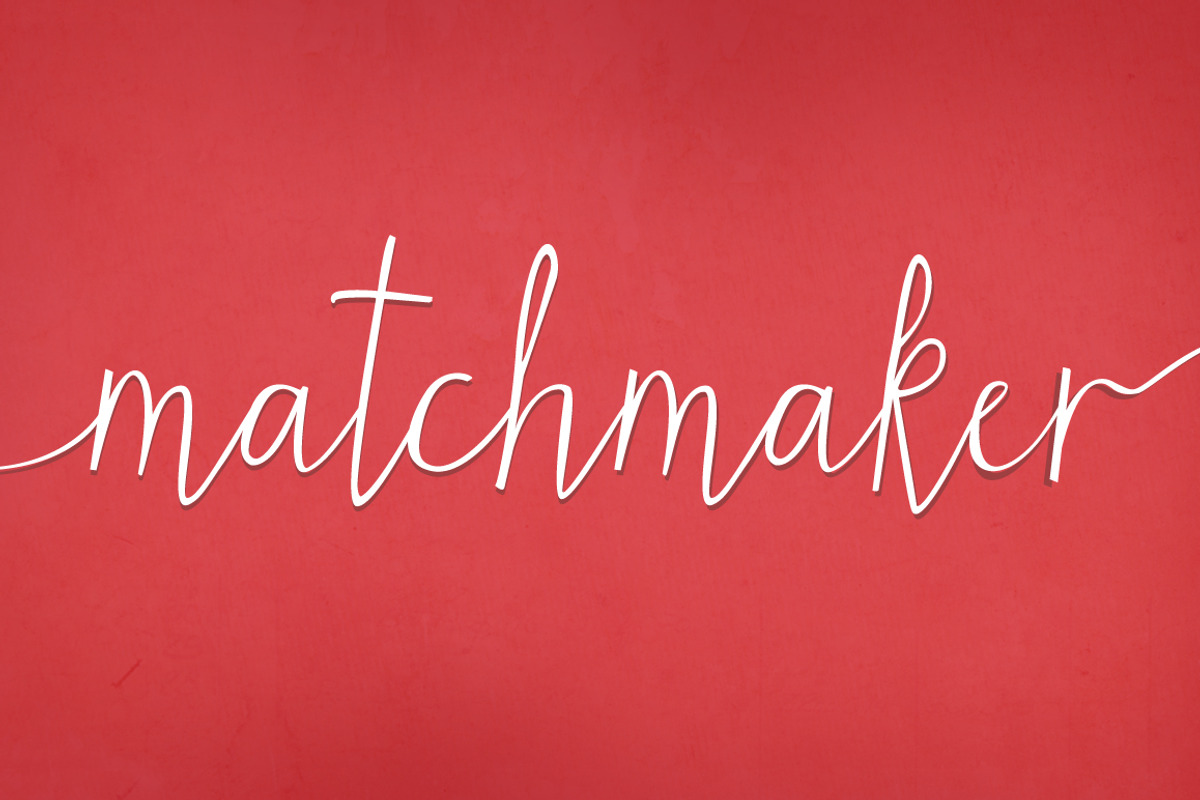
Matchmaker Font
Matchmaker Font by Angie Makes is a font selected for branding, posters, packaging, typography.
- Matchmaker features smart contextual alternates and swashes that add to the front and beginnings of letters (try using + + + on the end and
- Chocked full of swashes, alternates, and ordinals, Matchmaker just might be the perfect match for your next project.
Why Matchmaker Font is worth a look
Matchmaker Font by Angie Makes fits naturally into Branding, posters, packaging, typography.